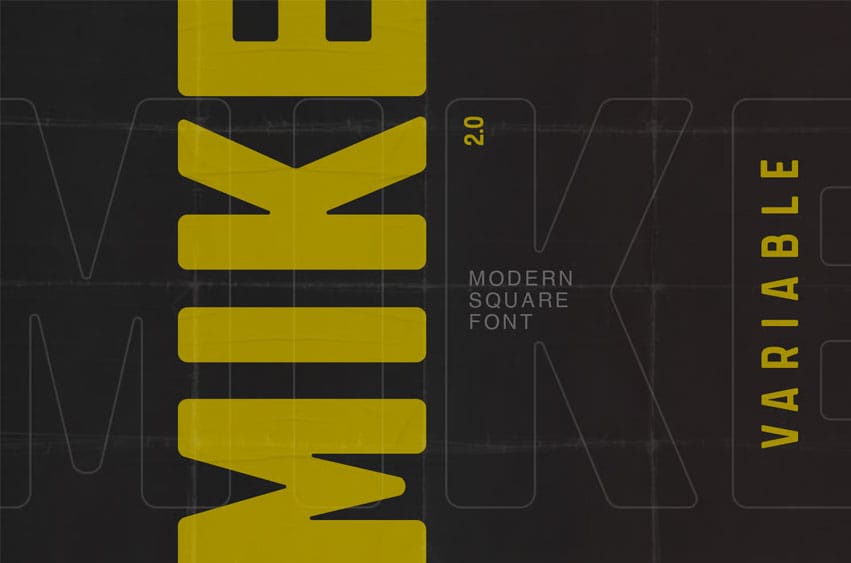
Mike Variable Font is a contemporary sans serif font with a square design that enhances versatility through clean, modern glyphs. It features variable weight with unlimited options, making it ideal for a wide range of display applications.
FEATURES
- Variable 1 Axis (weights, axis coordinates 100–900)
- 786 glyphs